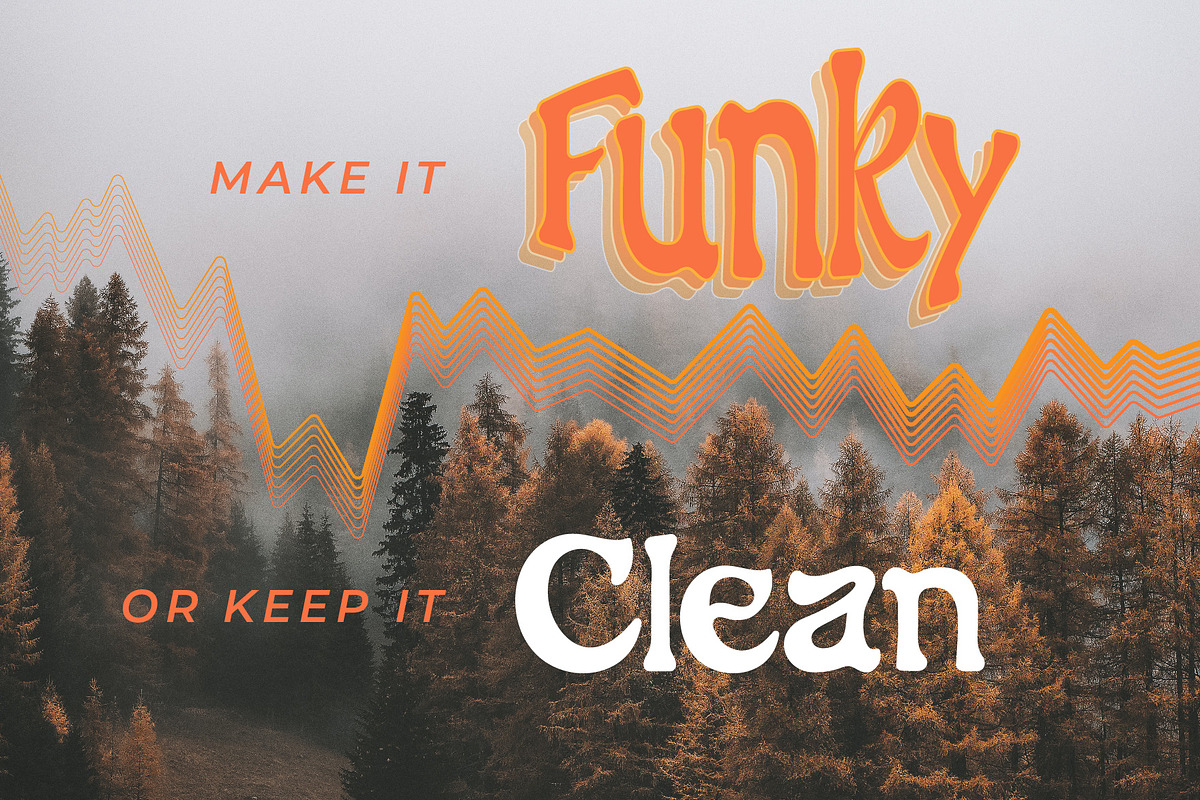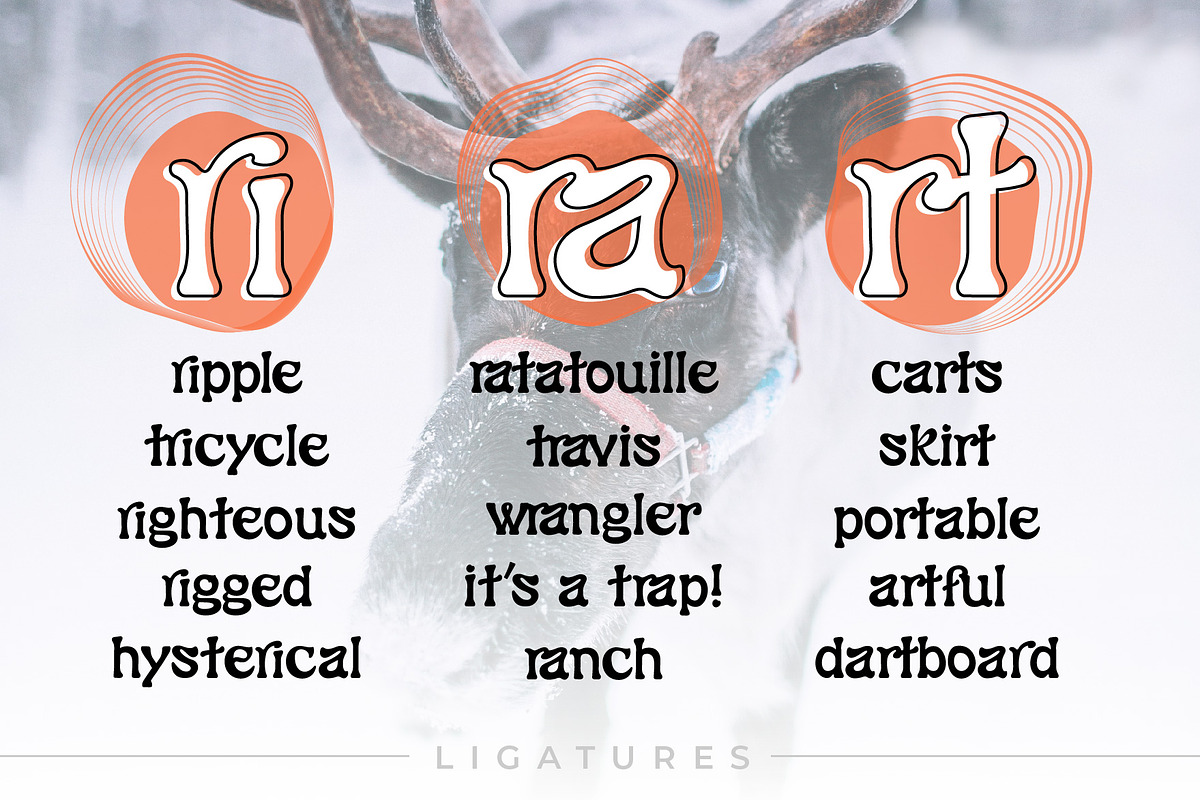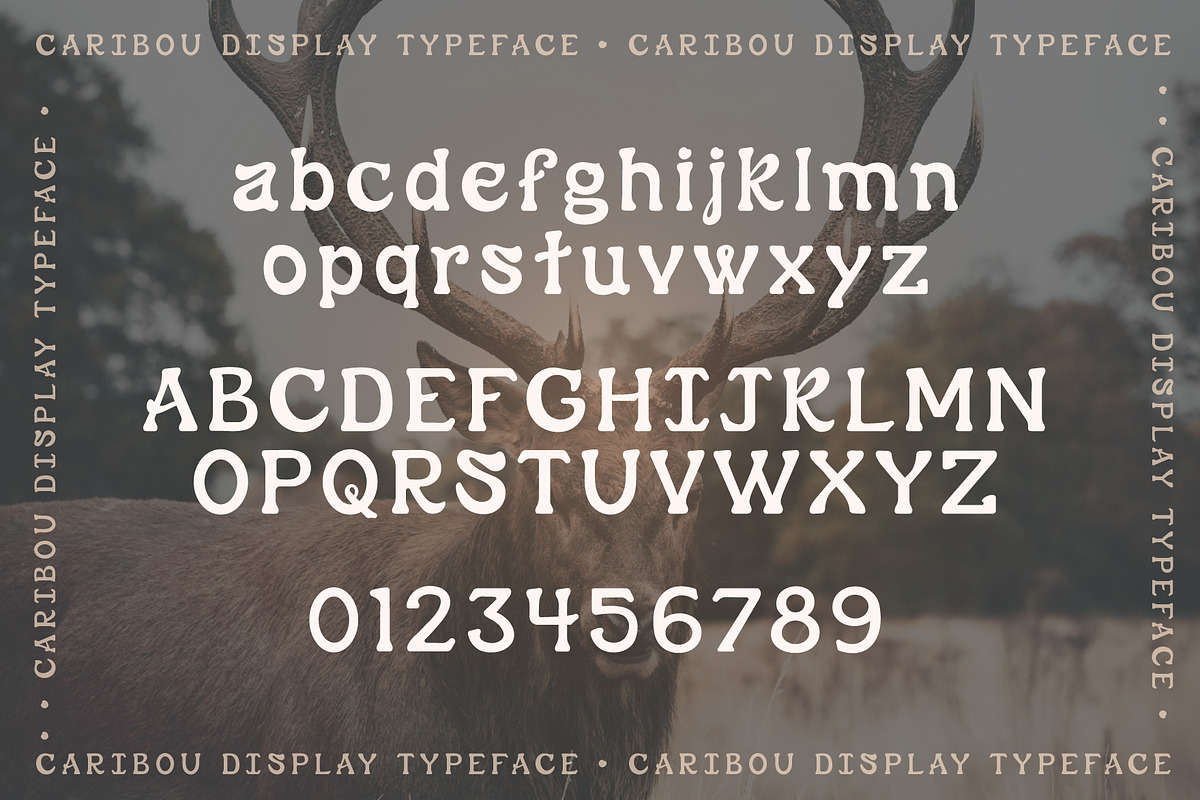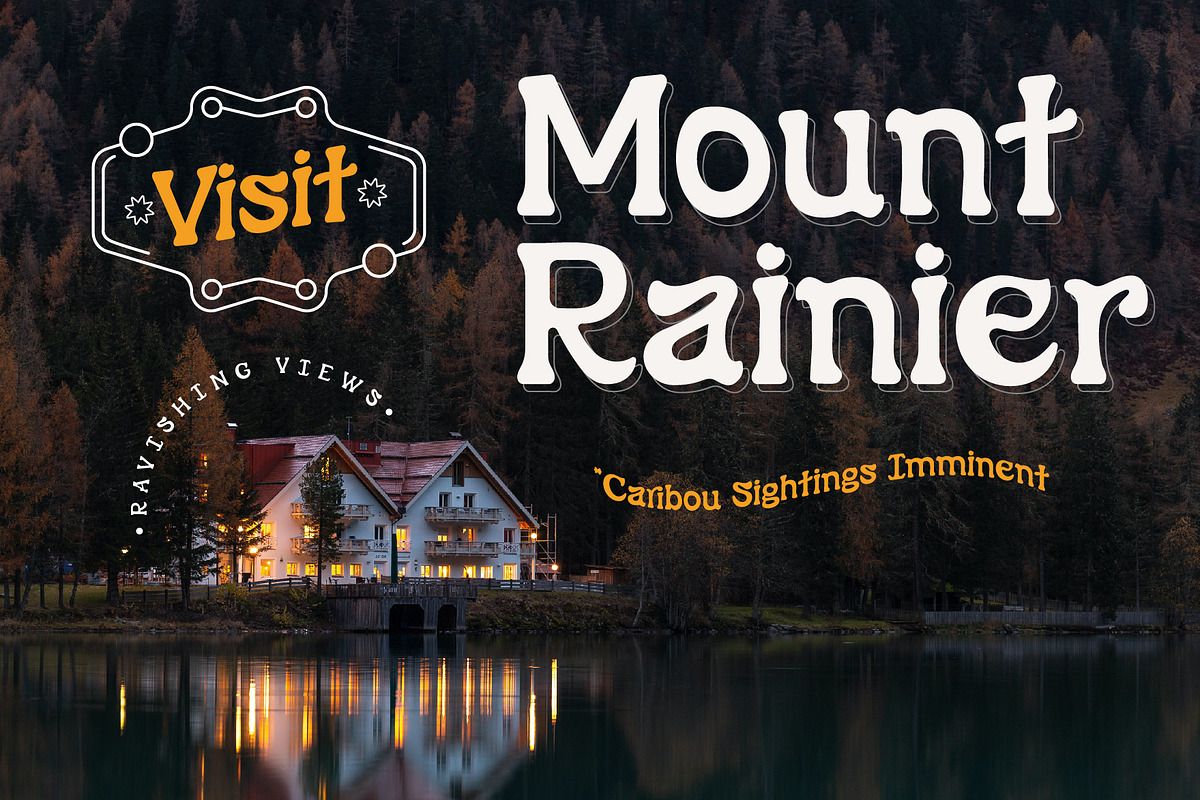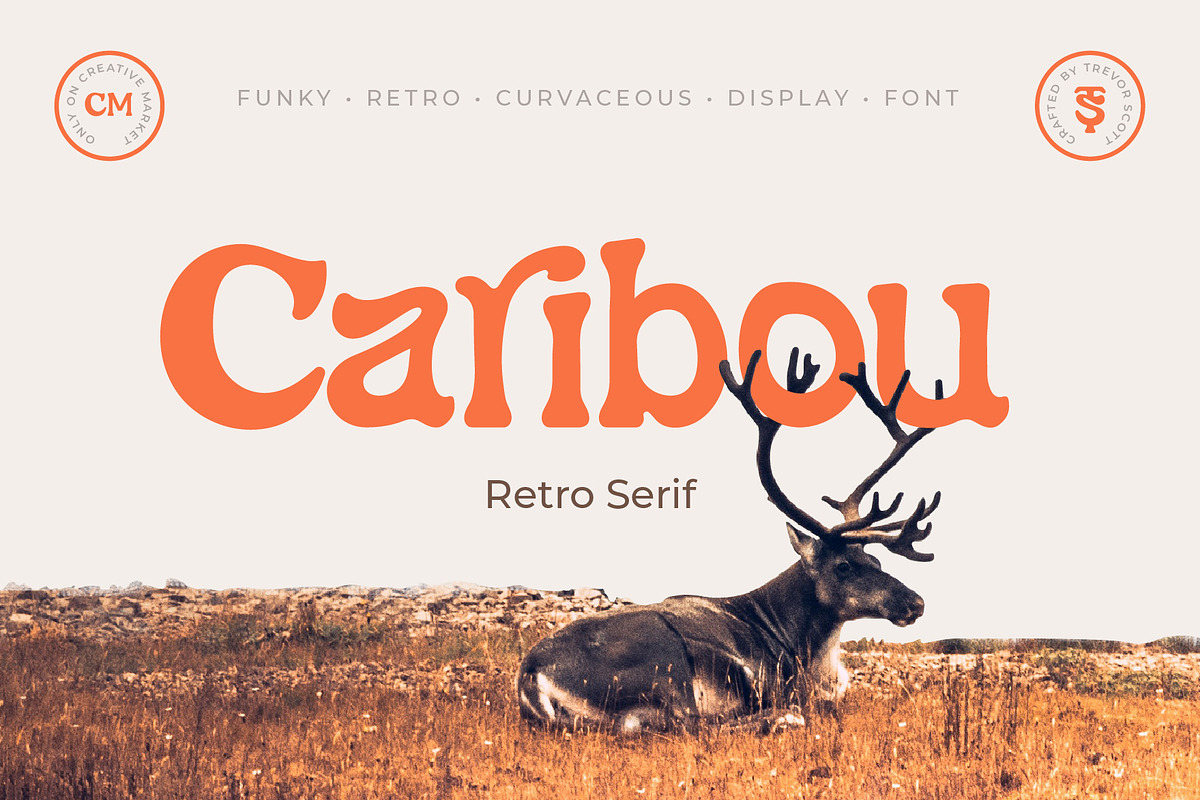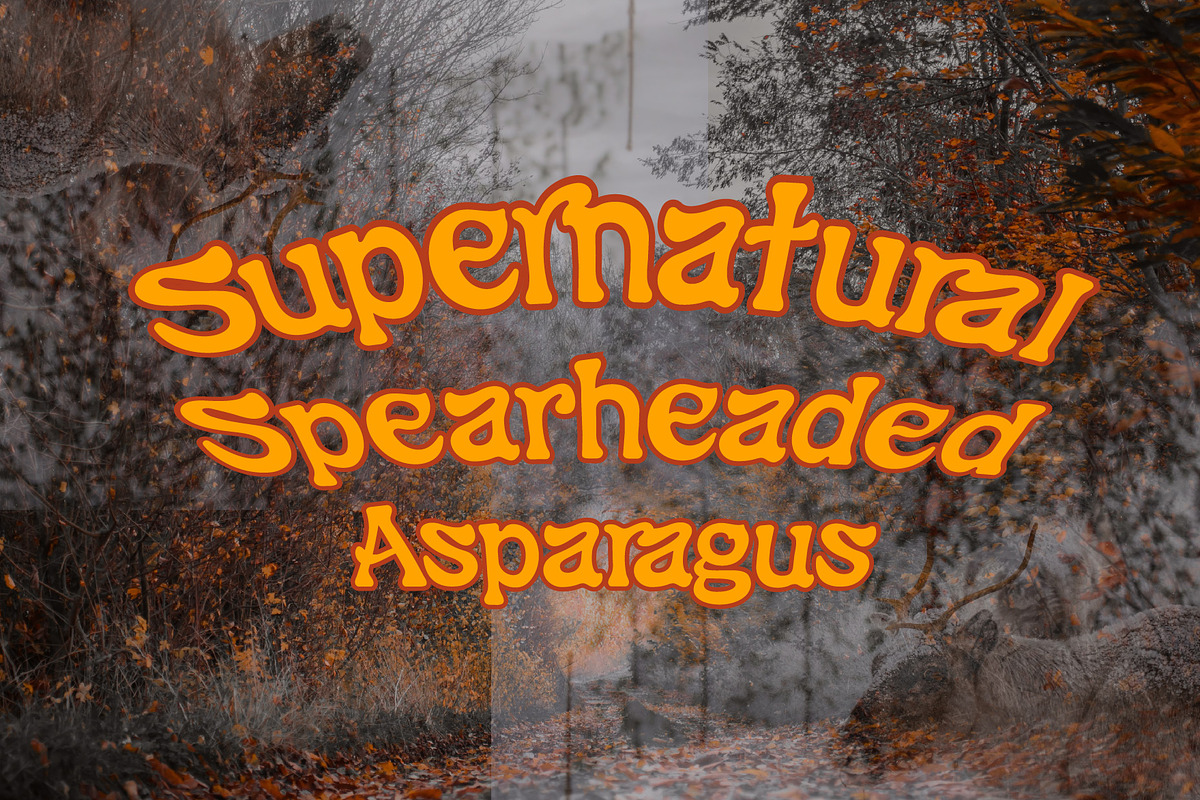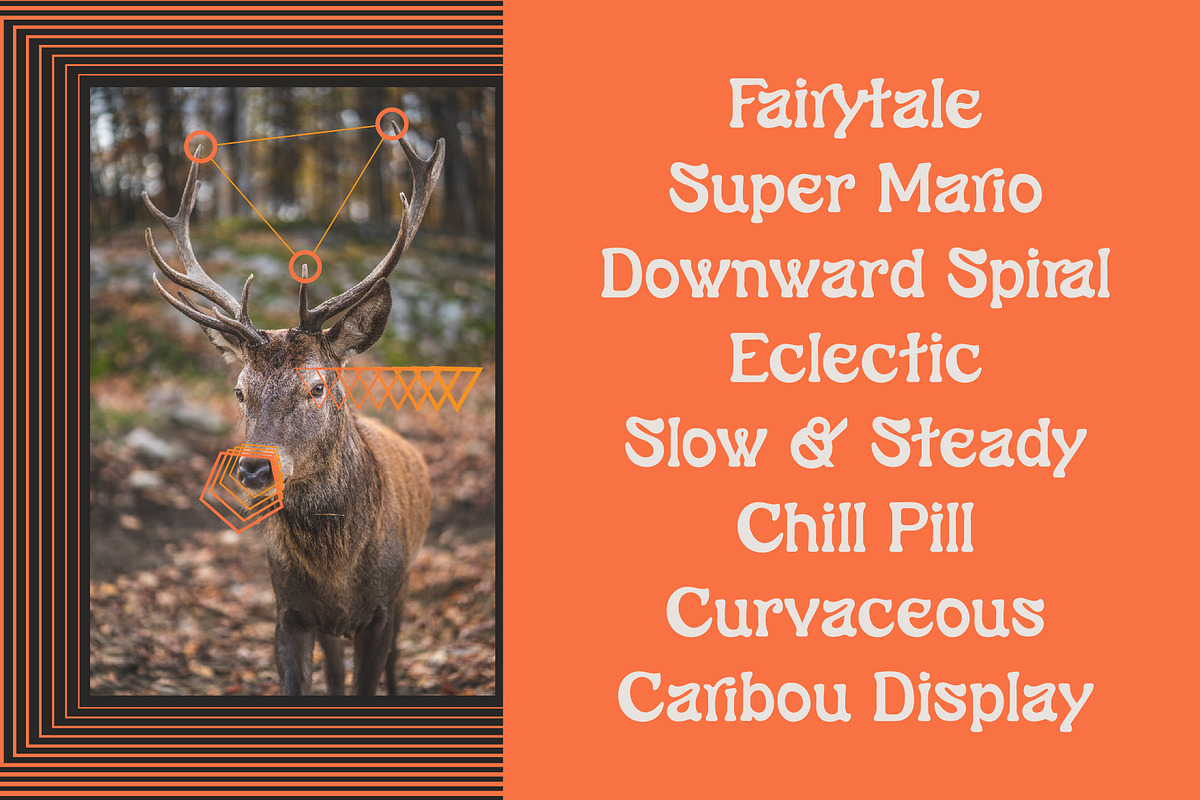
Caribou – Retro Serif
Caribou is a funky retro Serif typeface that can be used for a variety of display purposes. With groovy letterforms inspired by the natural curvaceous forms of caribou antlers, this typeface is sure to impress anyone with an eye for fun and funky type design.
As a display font, Caribou functions as a single bold weight, yet is applicable for all types of design formats. Caribou is best utilized for:
- Logo Design
- Display Type
- Magazine Covers
- Social Media Graphics
- Album Covers
- T-Shirts, Hats, Apparel
- and Anything Creative!
Included are lowercase, uppercase, numeric, and basic punctuation forms in the typeface. Grab a dose of Caribou today – You won't regret it!